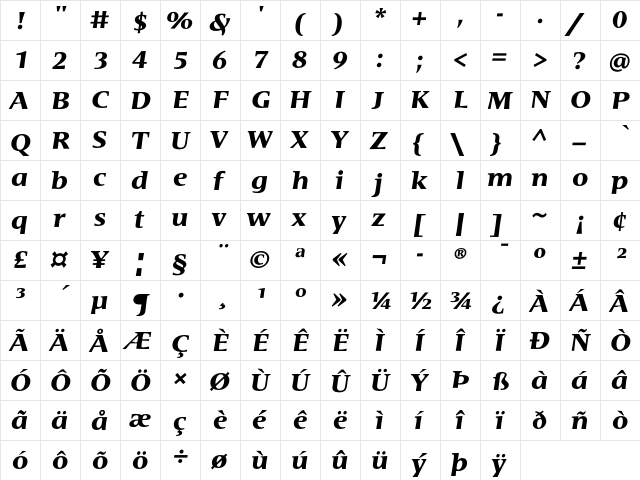
Areplos Text Pro Bold Italic Font Preview
| Foundry | Jan Solpera |
| Designer | Jan Solpera |
Design Context for Areplos Text Pro Typeface
Areplos Text Pro offers clean, dependable letterforms without strong stylistic allegiance, making it a practical choice for designers who need flexibility. Its italic angle brings a sense of urgency and motion to the letterforms. The heavy weight commands attention and anchors typographic hierarchies.
Pro Tip: Try Areplos Text Pro for annotation and caption copy alongside an upright companion — the contrast in angle creates a dynamic but ordered typographic system.